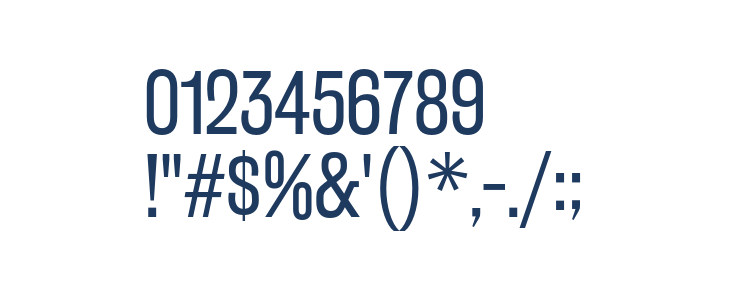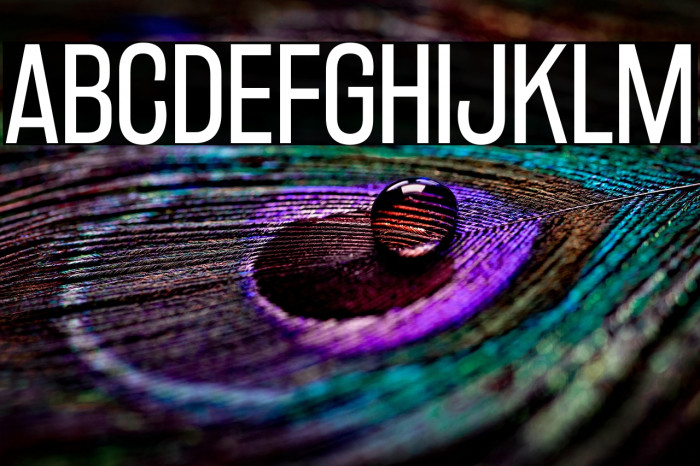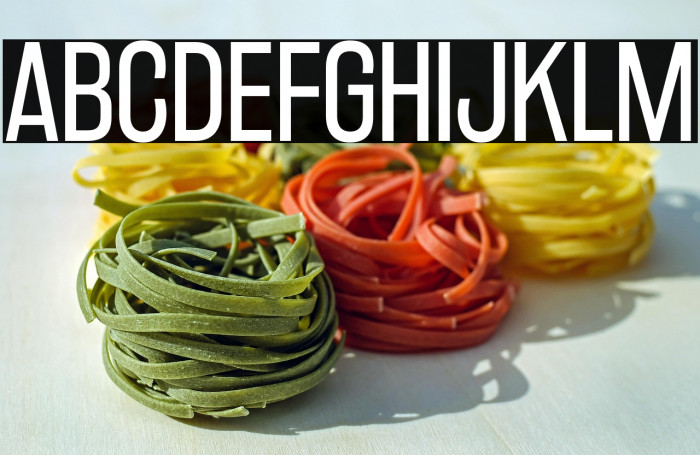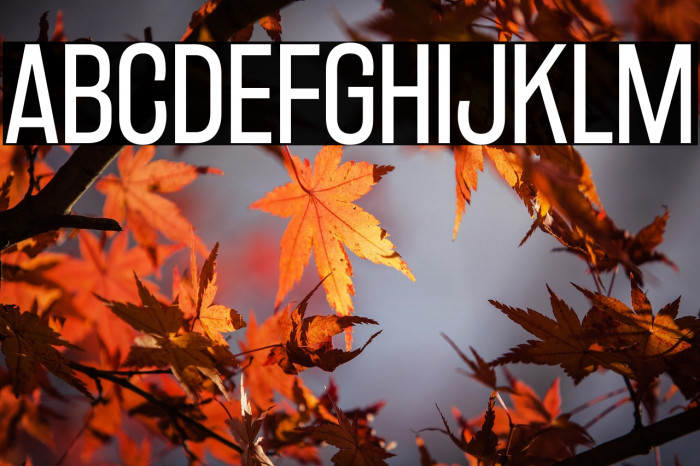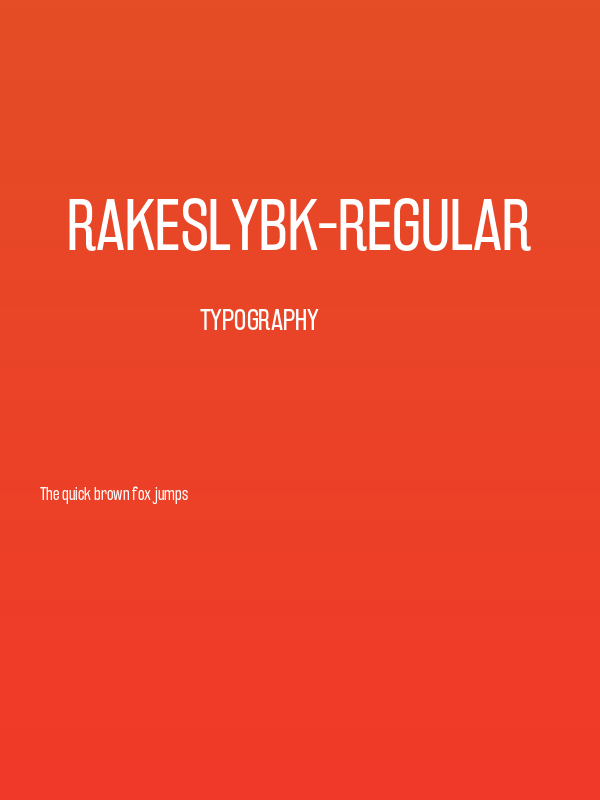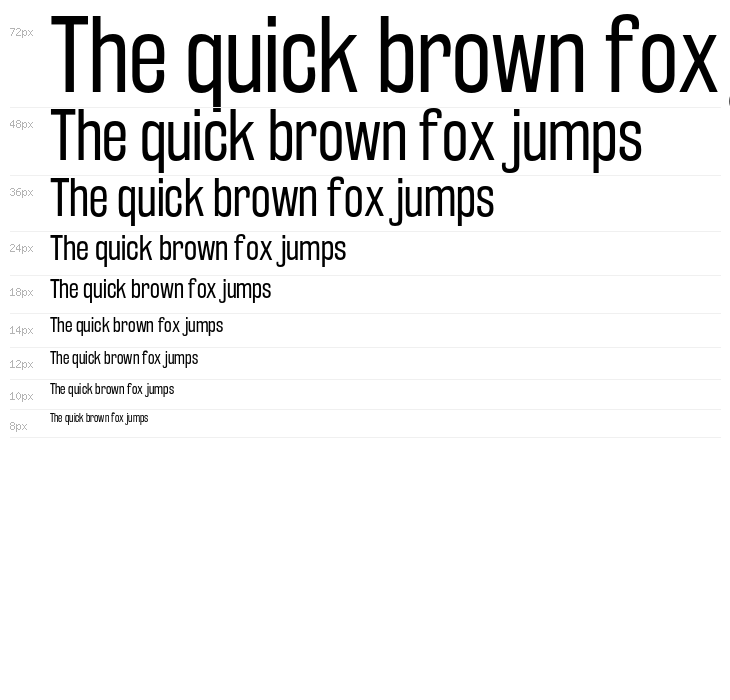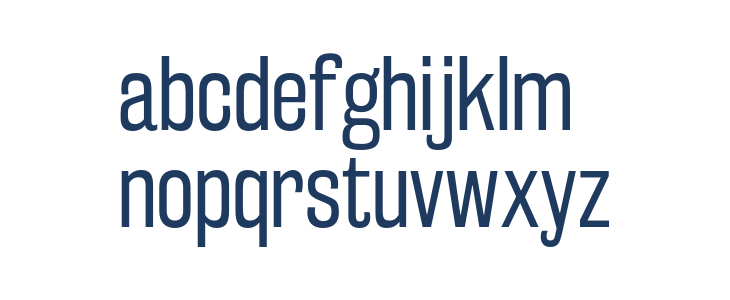
RakeslyBk-Regular Font
RakeslyBk-Regular Description
This font features a clean and modern design with tall, narrow letterforms that convey a sense of elegance and sophistication. The characters are uniformly structured, with consistent stroke widths that provide a balanced and harmonious appearance. The uppercase letters are bold and assertive, while the lowercase letters maintain a sleek and streamlined look. The numerals are clear and easily distinguishable, making them suitable for various applications. Special characters are well-integrated, maintaining the overall aesthetic of the font. This typeface is versatile and can be used in both digital and print media.
Proposed ProjectsIdeal for branding, editorial design, advertising, and web design projects.